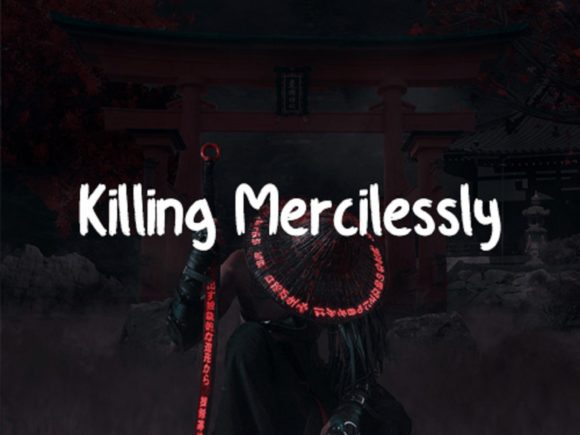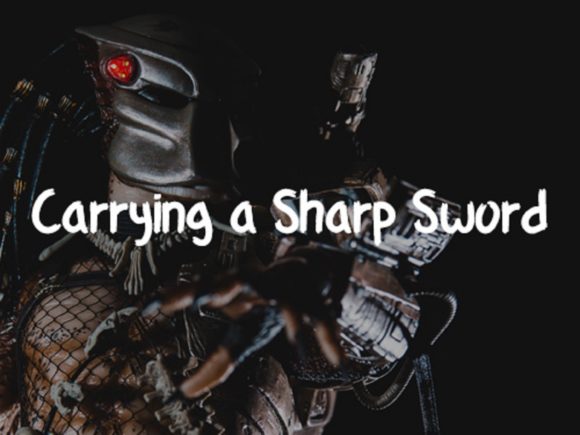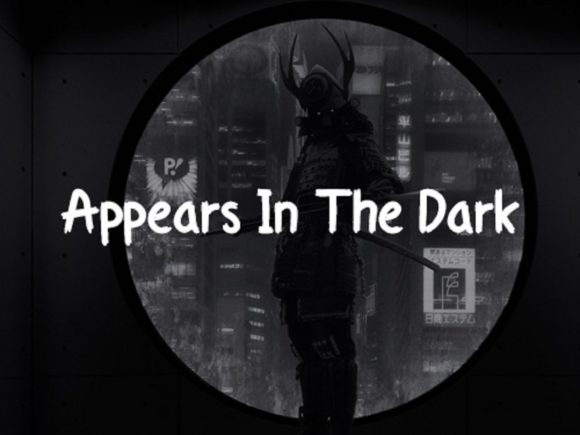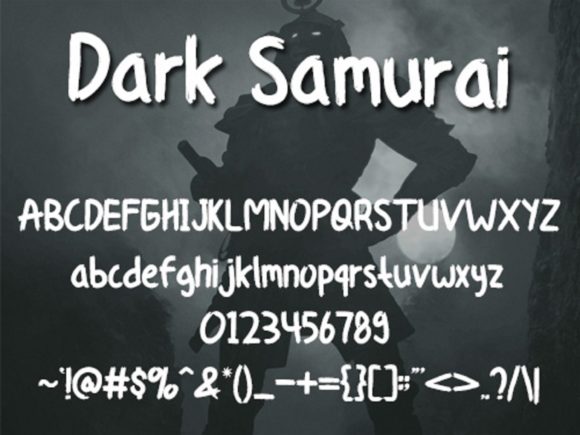
The Quest for the Perfect Font: How Dark Samurai Saved the Day
I’ll never forget the time I was working on a project for a client who wanted a unique, hand-crafted look for their branding. I spent hours scouring the internet for the perfect font, but nothing seemed quite right. That was until I stumbled upon Dark Samurai, a cool, natural, and simple brushed display font that changed the game. In this article, I’ll share my experience with Dark Samurai, its features, and how to make the most of it in various design platforms.
An Honest Review of Dark Samurai
- ✨ Unique Brushed Look: Dark Samurai has a distinctive brushed appearance that adds a touch of personality to any design.
- ✅ Versatility: This font is perfect for a wide range of projects, from crafting and digital designing to presentations and greeting cards.
- 💡 Easy to Read: Despite its unique look, Dark Samurai remains clear and easy to read, even in smaller sizes.
While Dark Samurai is an excellent font, it’s not without its quirks. For example:
- 🤔 Limited Formality: Dark Samurai’s brushed look may not be suitable for very formal or traditional designs.
The Backstory of Dark Samurai
Dark Samurai was created by a talented font designer who drew inspiration from traditional Japanese art and modern street culture. The result is a font that’s both unique and versatile, perfect for a wide range of design projects.
Q: Is Dark Samurai suitable for body text?
A: While Dark Samurai is a beautiful font, it’s primarily designed for display purposes. For body text, you may want to choose a clearer, more legible font.
Q: Does Dark Samurai support OpenType features?
A: Yes, Dark Samurai supports OpenType features, including stylistic alternates and glyphs. Experiment with these features to add more personality to your text.